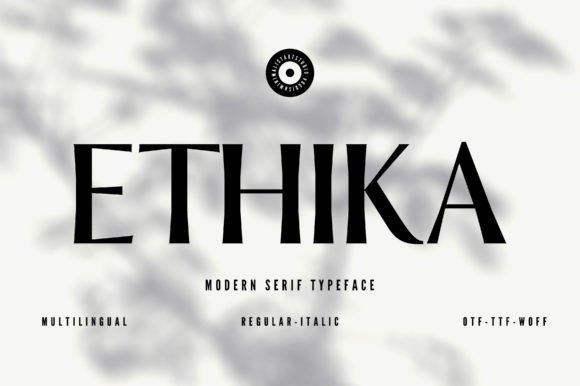
Discover Ethika, the epitome of minimalist elegance and chic sophistication in the world of typography. Crafted with a keen eye for balance, form, and function, this serif font is a strikingly beautiful choice for designers, creatives, and anyone seeking a font that exudes understated refinement.
With its clean lines, bold serifs, and exquisite proportions, Ethika is a timeless classic that seamlessly blends tradition with modernity. Whether you're designing a logo, creating a website, or laying out a print project, Ethika is a versatile typeface that will take your work to new heights.
Ethika's sleek, modern style makes it ideal for a wide range of applications, from fashion and beauty to luxury and lifestyle brands. Its remarkable legibility is one of its standout features, making it perfect for use in body text, headings, and captions alike. Even at smaller sizes, the font's clear, sharp lines ensure easy readability, while its elegant serifs add a touch of sophistication and refinement.
But Ethika is more than just a visually stunning font. It evokes emotion and captivates users with its understated charm. Its minimalist design, paired with impeccable attention to detail, makes it the perfect choice for any project that demands a touch of sophistication and style.
Imagine the impact Ethika will have on your brand. It will convey a sense of elegance and simplicity, elevating your message and captivating your audience. Whether you're aiming to create a luxurious brand identity or communicate a refined lifestyle, Ethika is the font that will bring your vision to life.